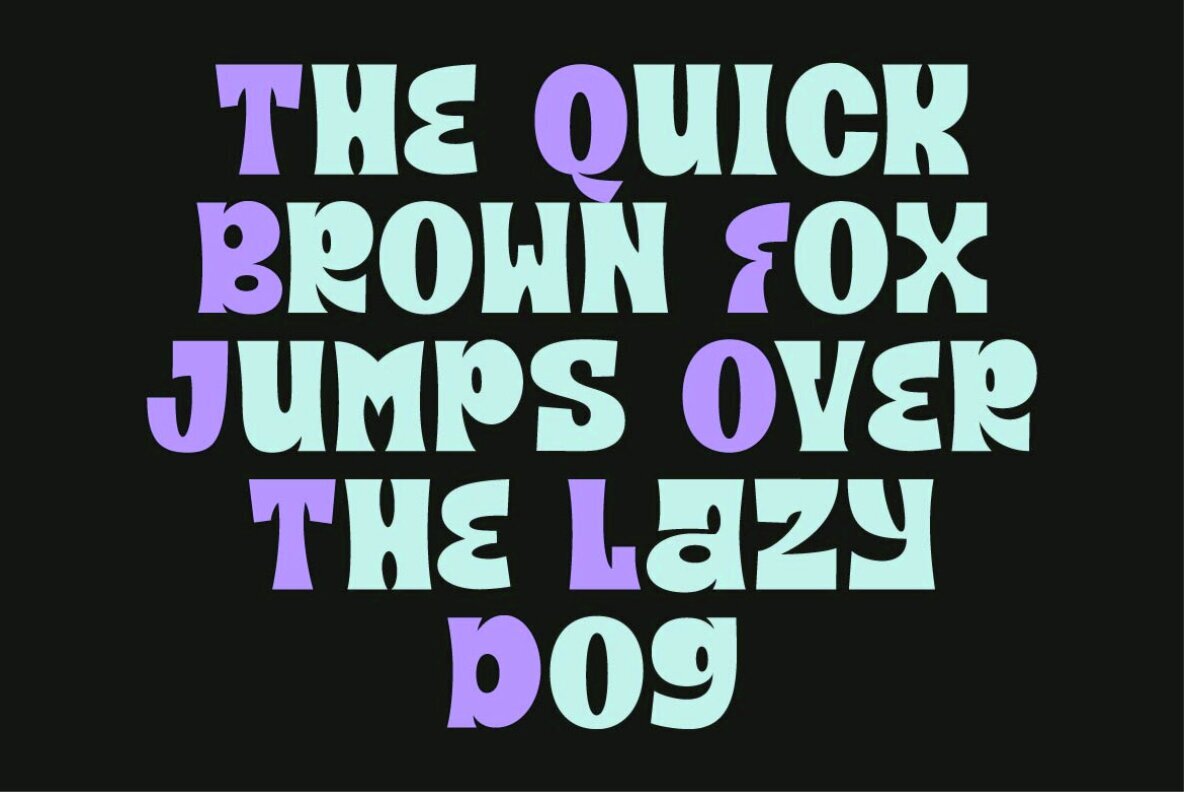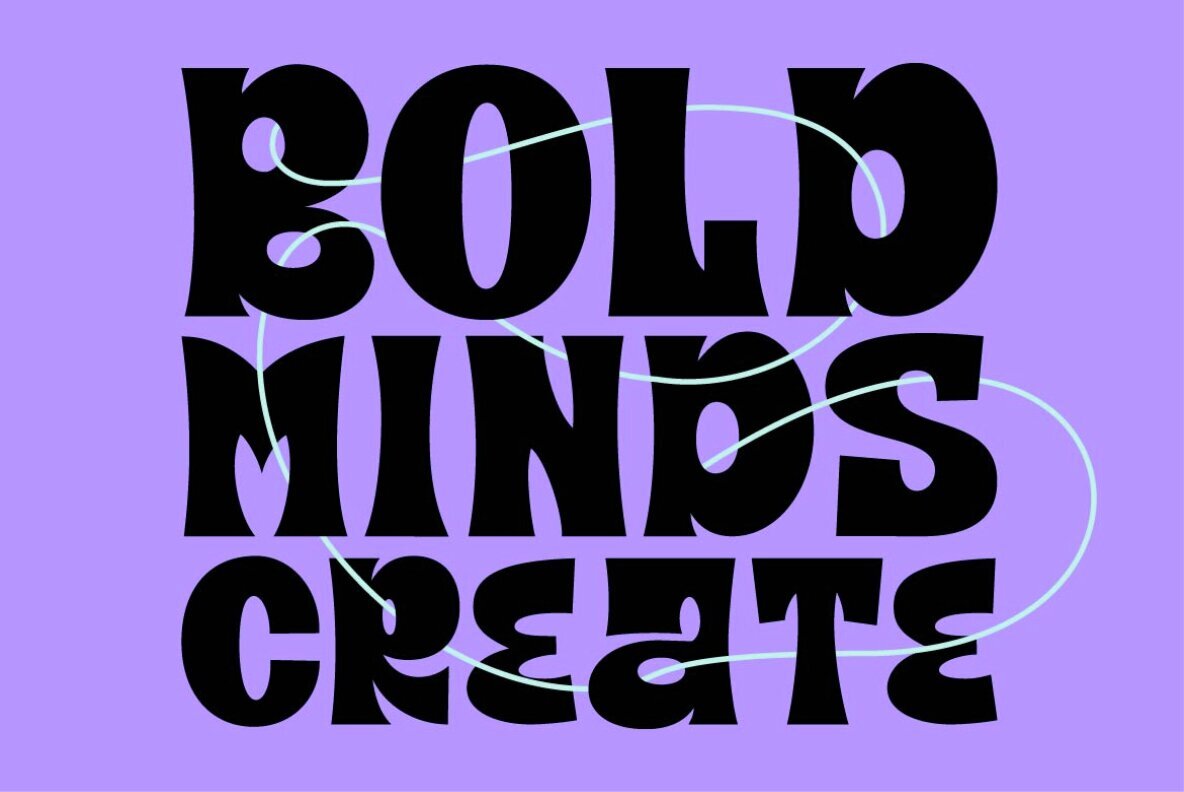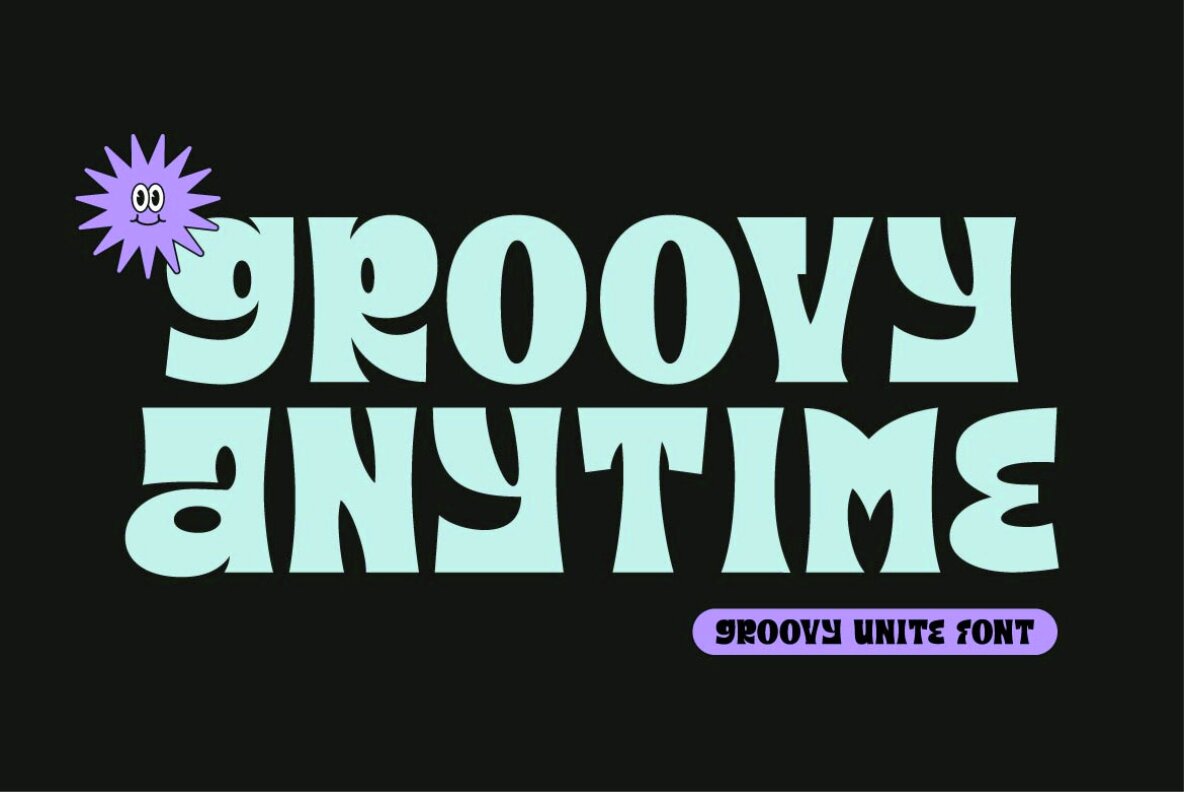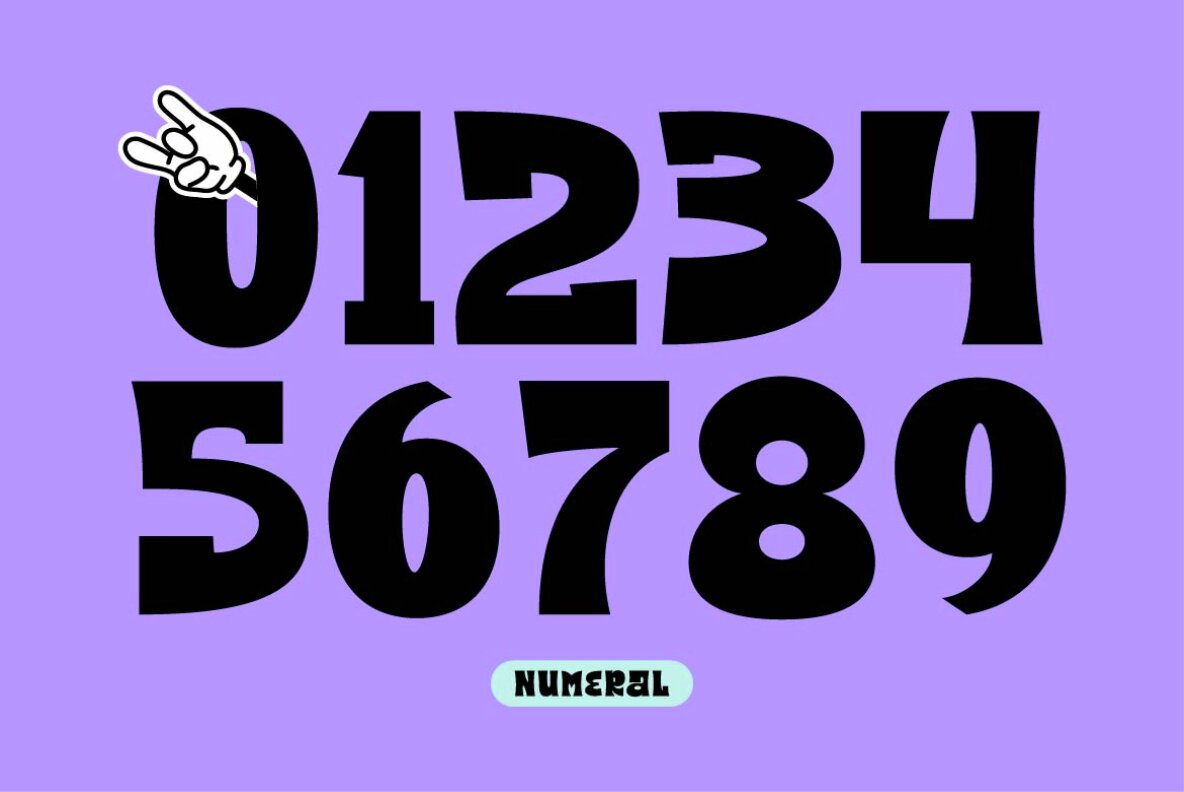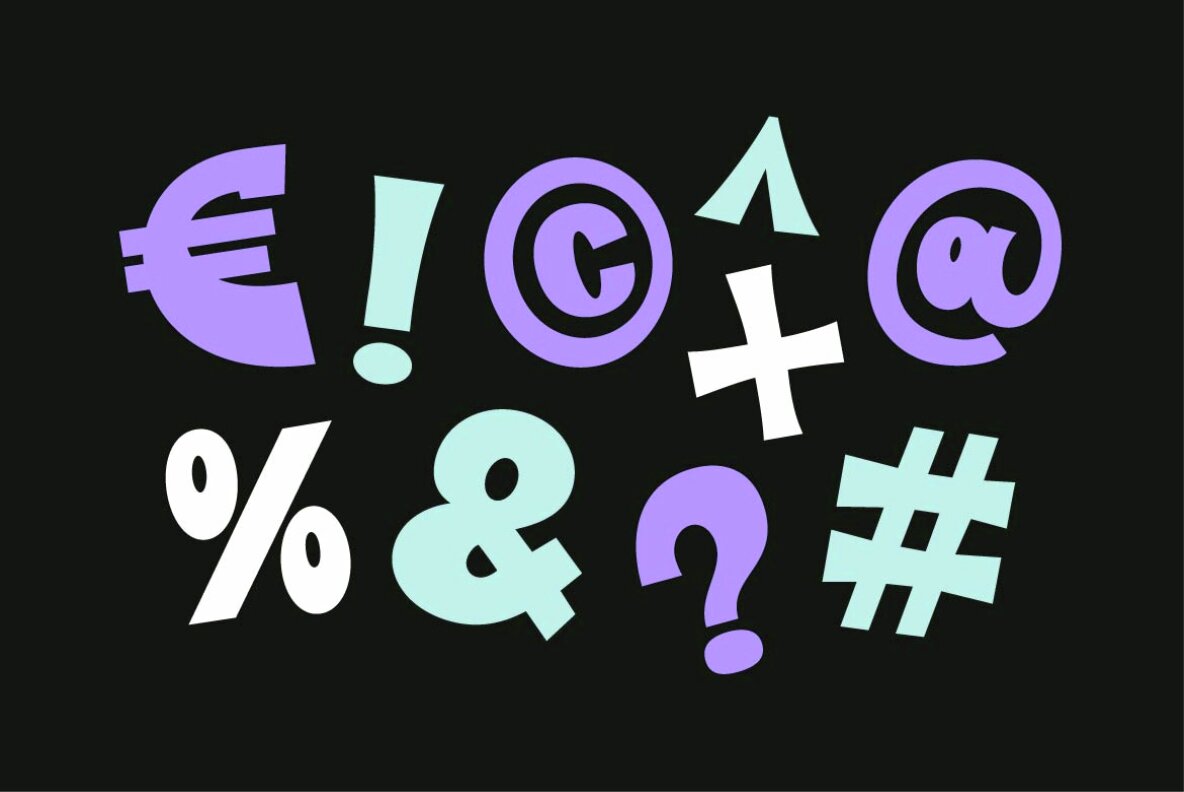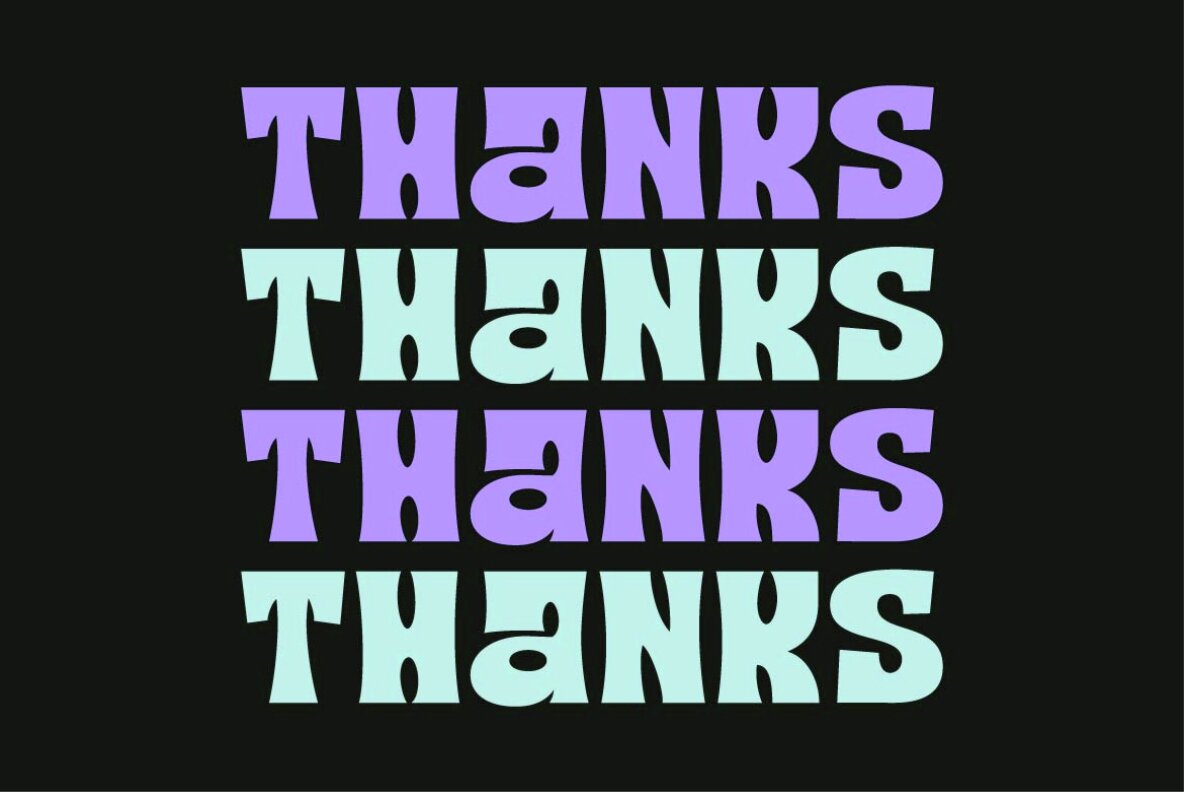
Groovy Unite Font
Groovy Unite Regular
Groovy Unite is a font that combines a modern touch with a groovy aesthetic, resulting in a unique typeface that exudes a retro-cool feel. With its resemblance to a sans serif font, this groovy font creates a balance between vintage appeal and contemporary design. Perfect for adding a touch of nostalgia with a modern twist, Groovy Unite is ideal for a variety of creative projects that want a mix of retro and contemporary styles.